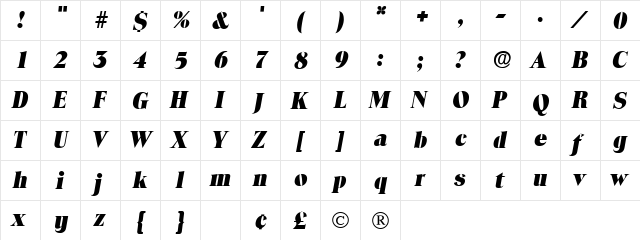
Locura Display SSi Italic
Design Context for Locura Display SSi Typeface
Locura Display SSi brings ornamental detail and strong personality to headlines and identities, where visual impact matters more than quiet functionality. The dynamic lean of this cut emphasises speed and emphasis in any layout.